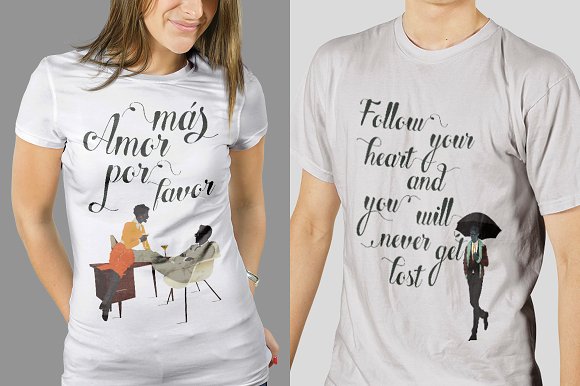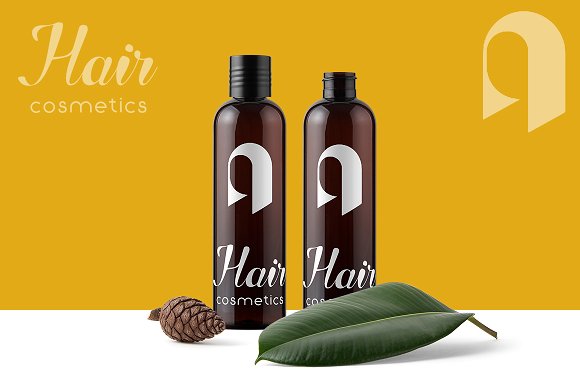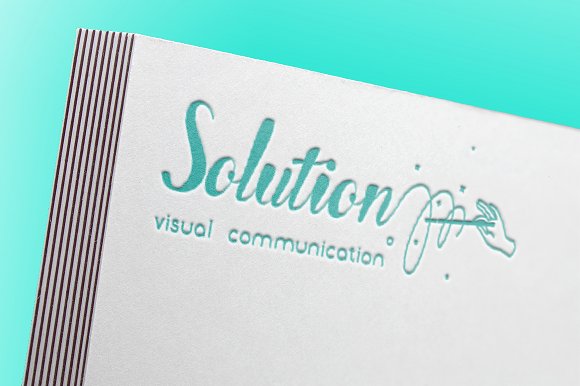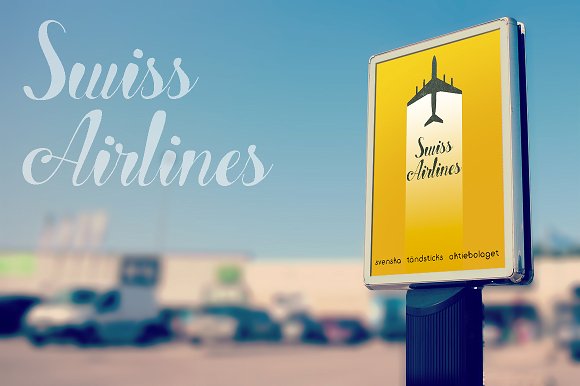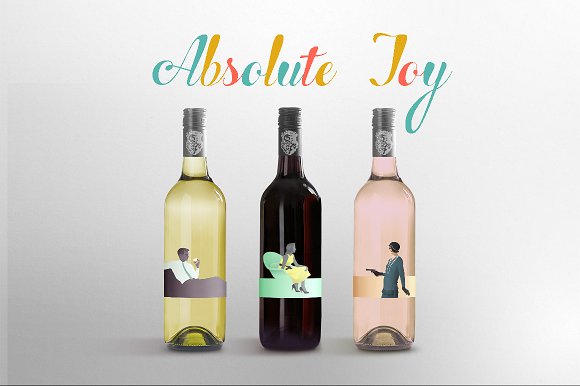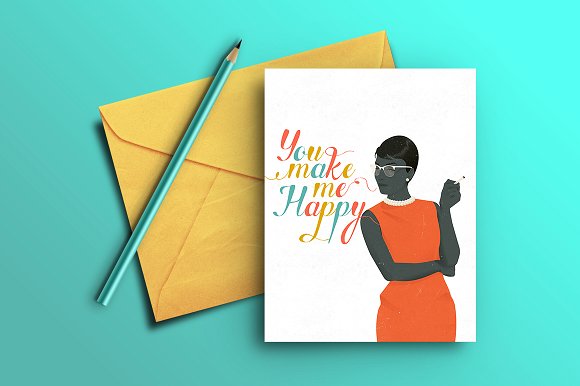
Hooley Script Font
Hello, dear friends. Here is the party script ‘Hooley’. It’s created for decoration, advertisement, product design, signing cards and whatever you can imagine. The font is PUA encoded, that allows you to use special characters with glyphs panel. Now you can purchase it on reduced price, so grab it!